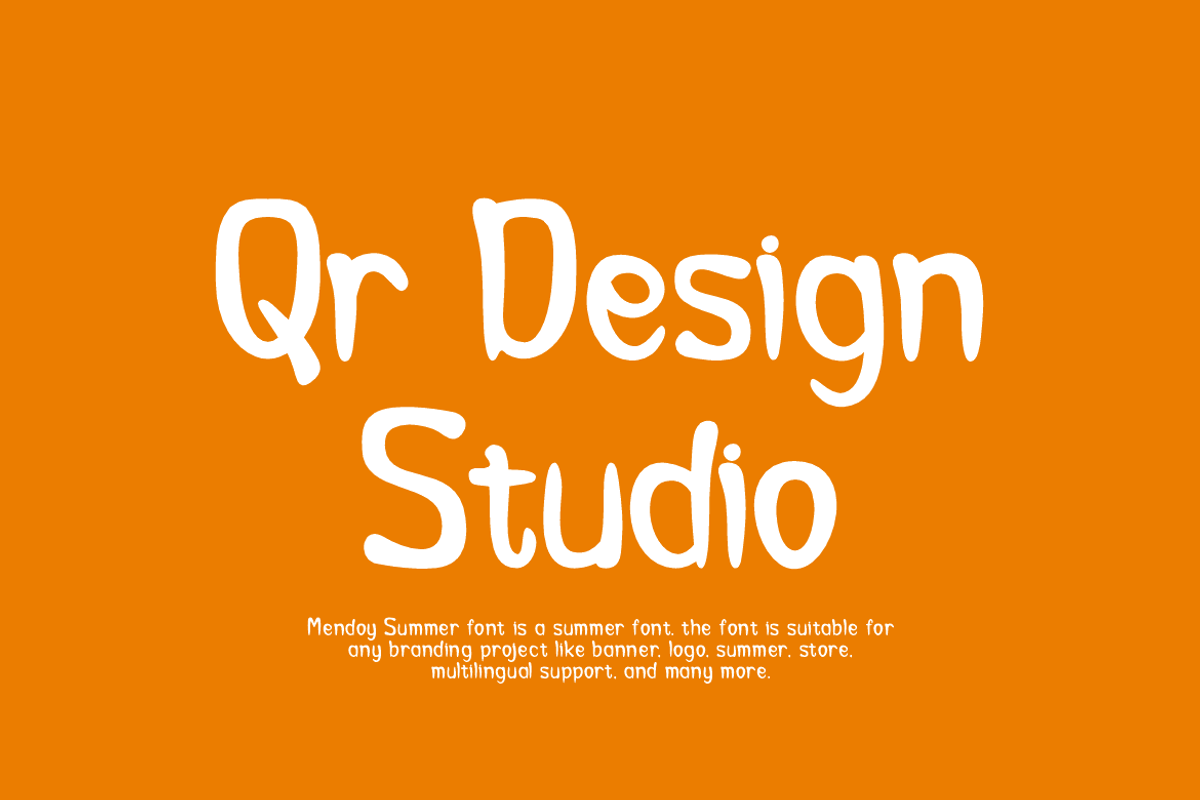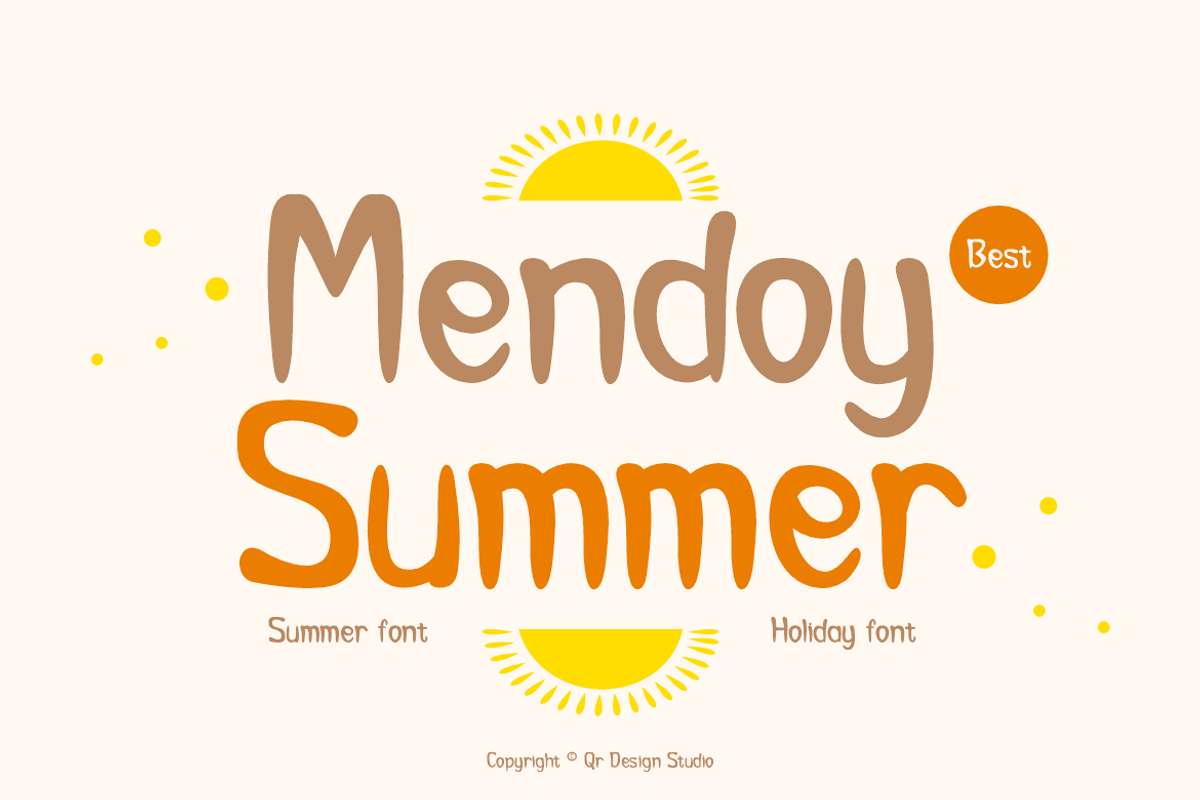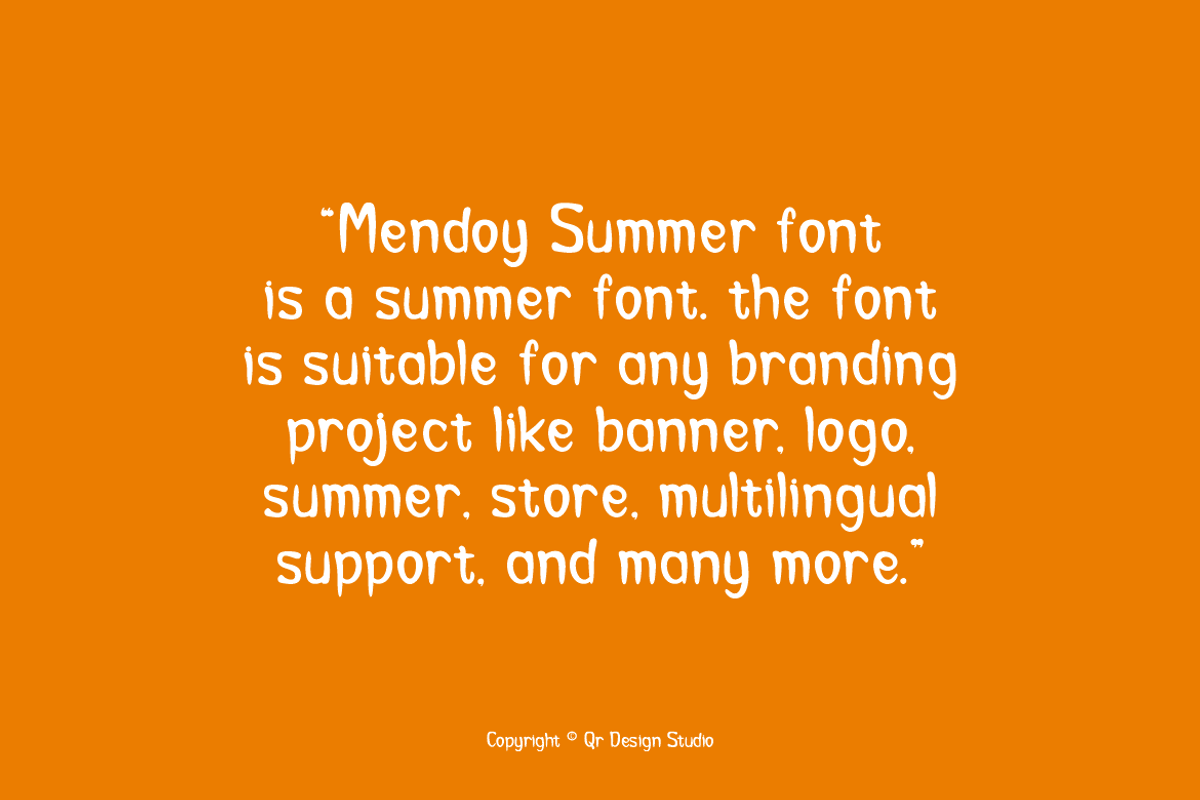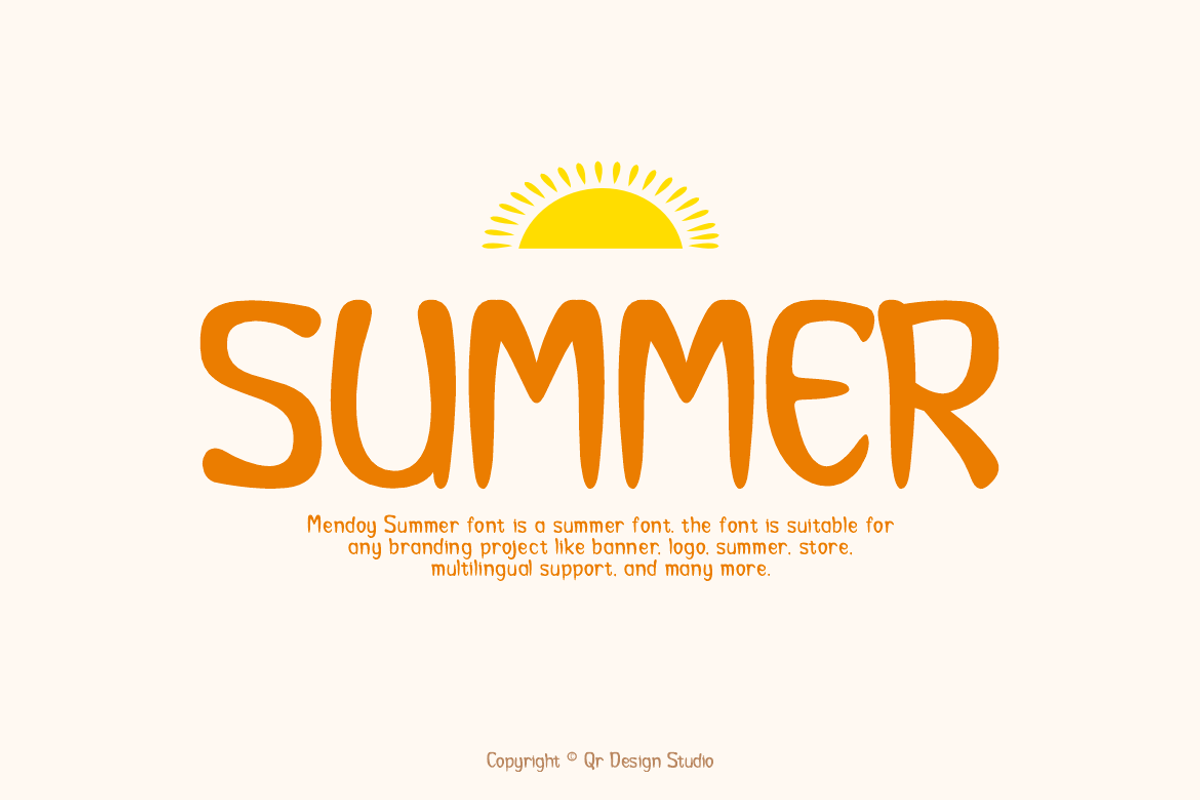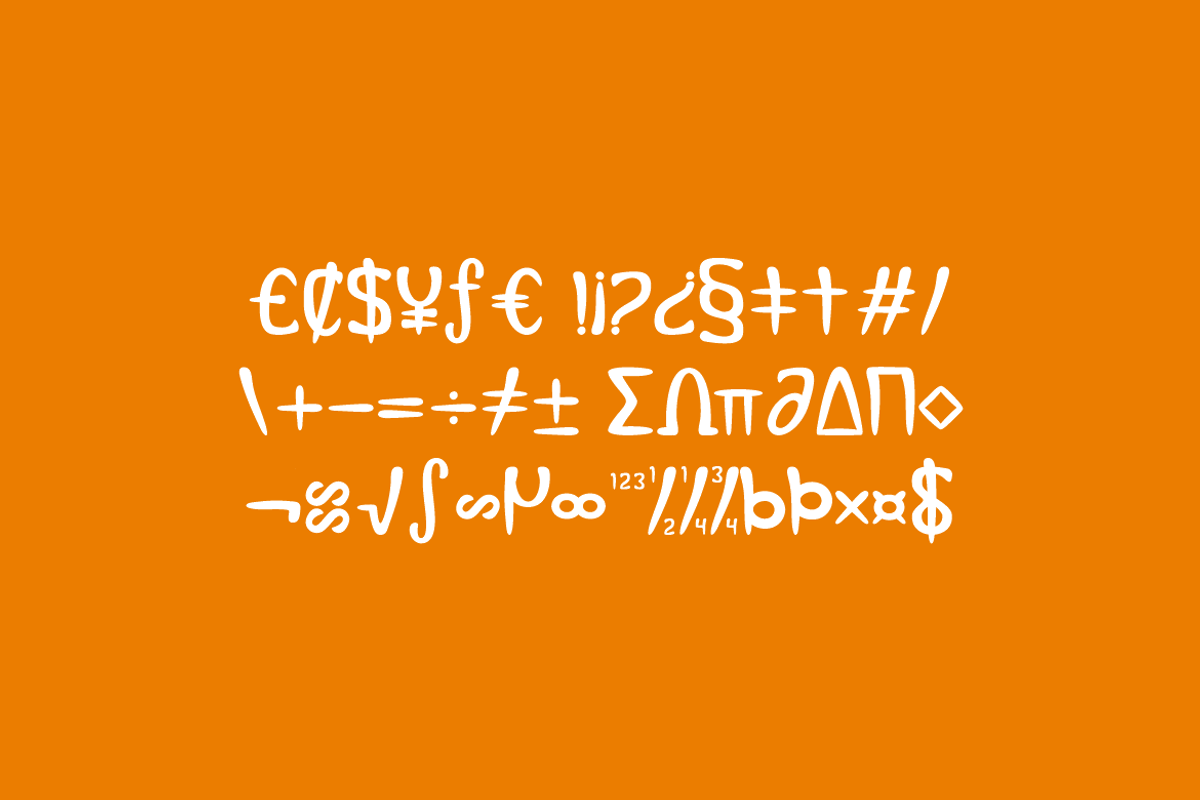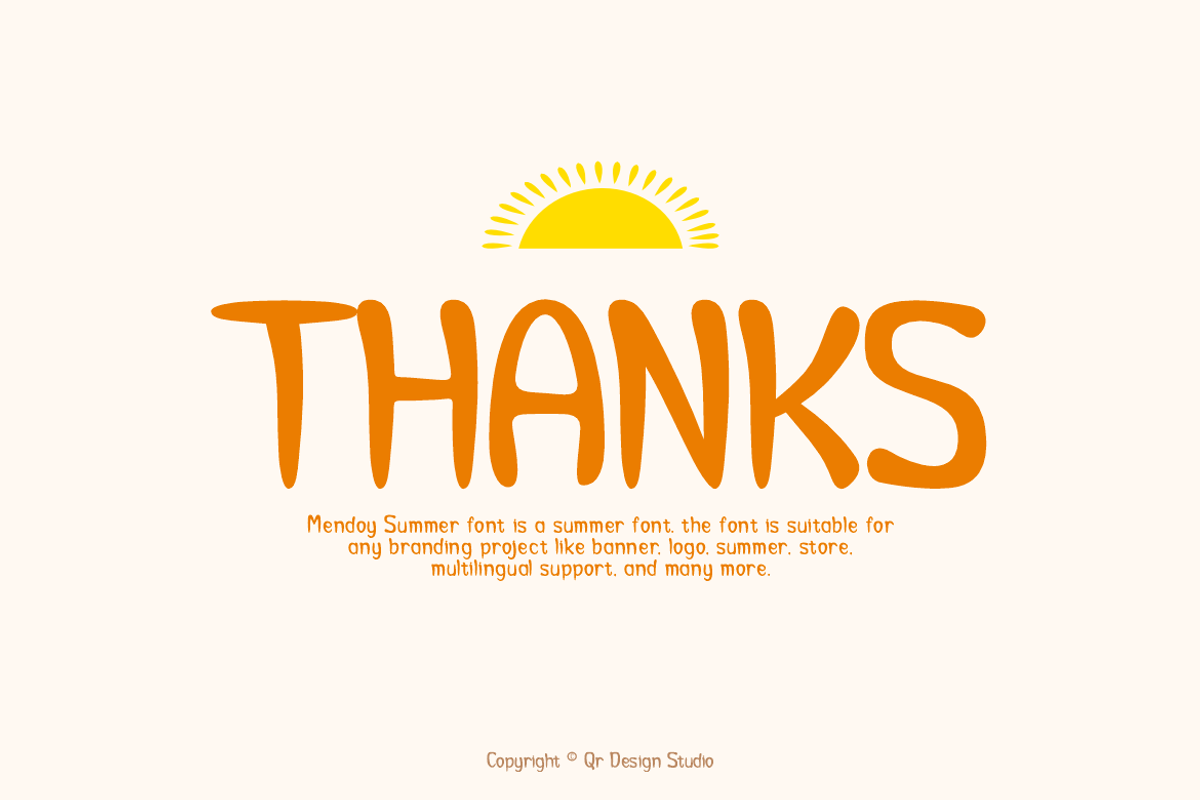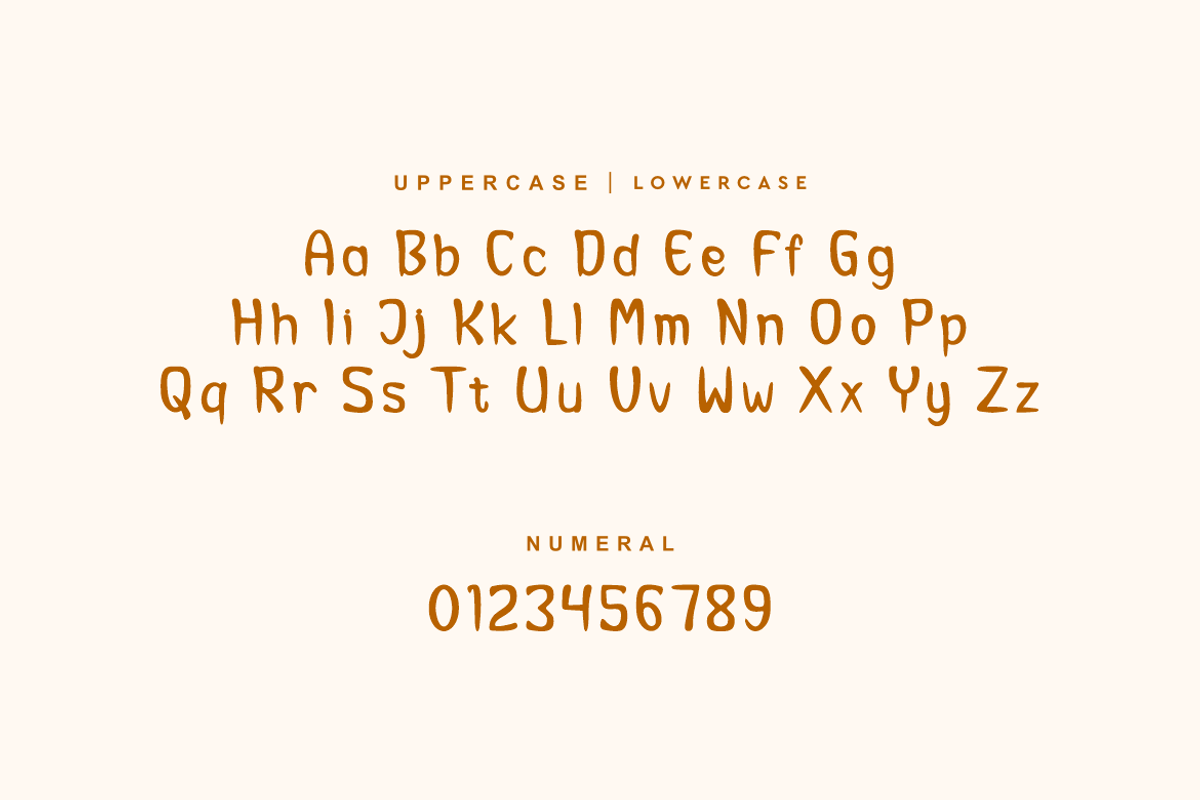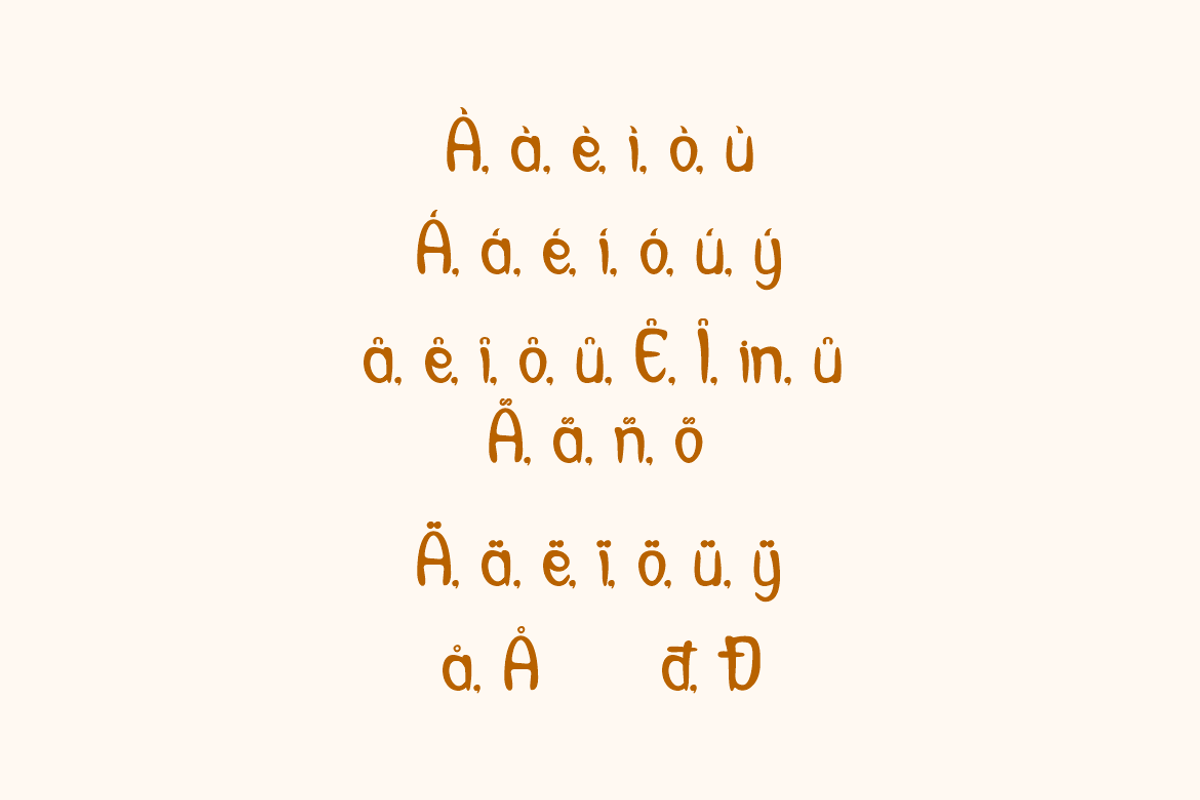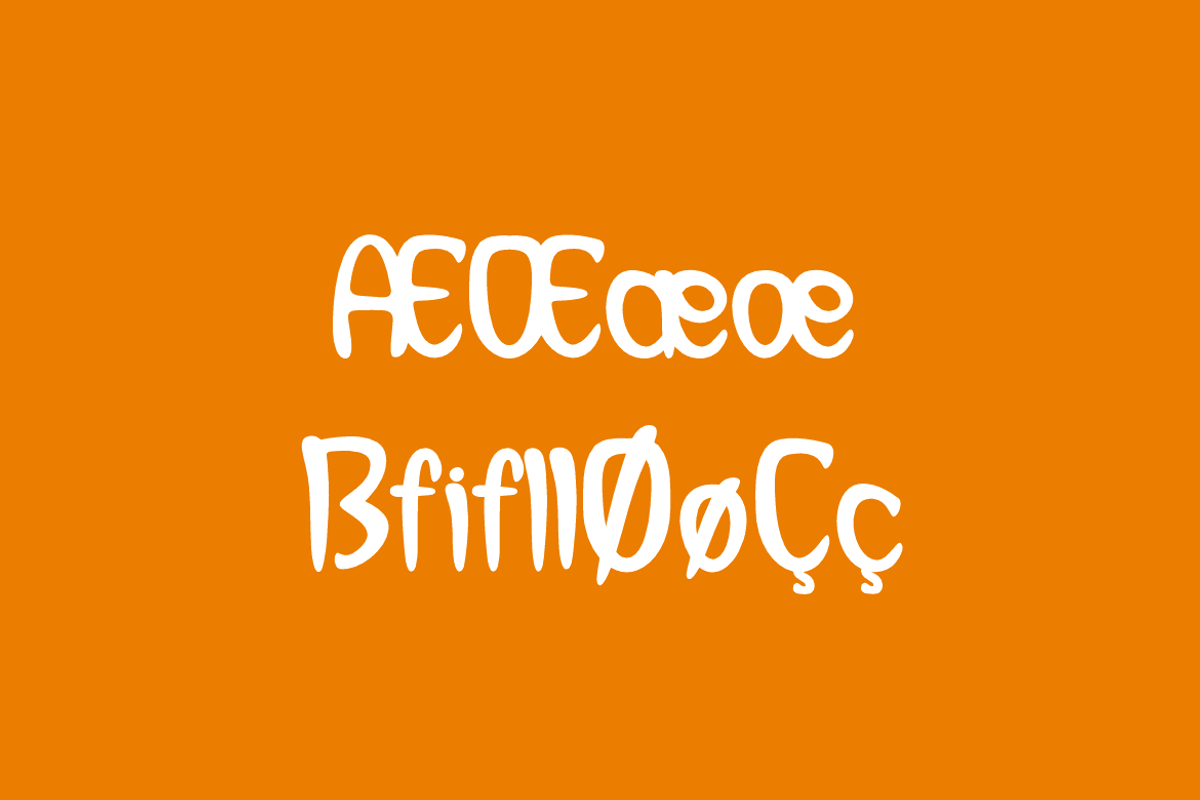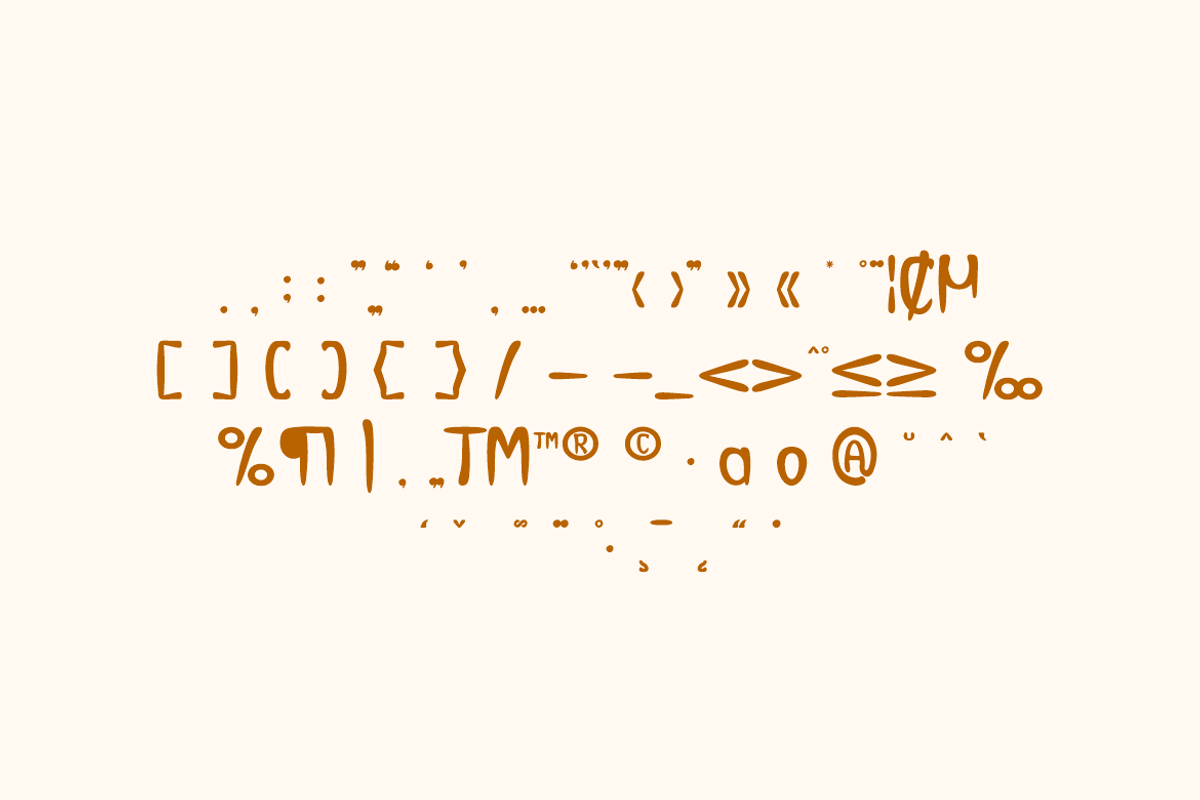
Mendoy Summer Font
Mendoy Summer Font is a summer and authentic display font. The font is suitable for any branding project like poster, logo, playful, and many more. Outstanding in a wide range of contexts.